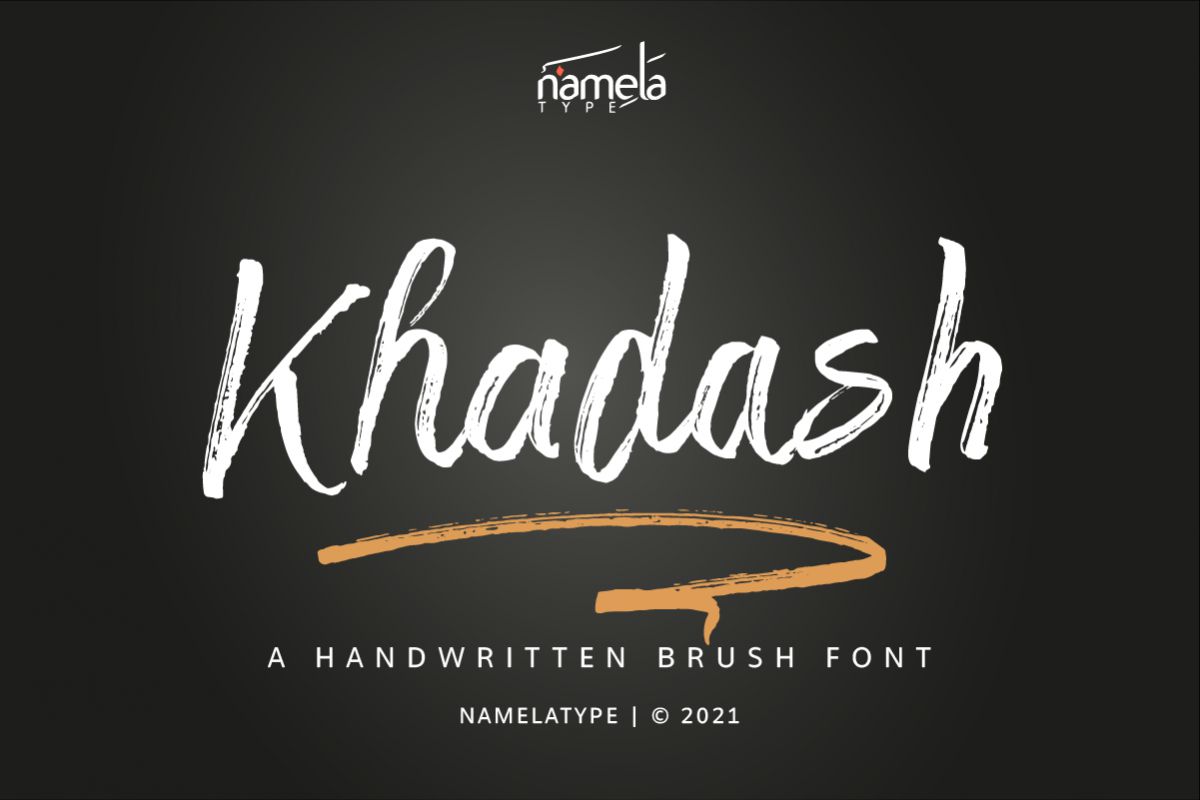
Khadash Regular
Khadash Font - A Stunning Handwritten Brush Typeface for Apps & ePub Some typefaces are designed to disappear, allowing content to take center stage. Khadash is not one of them. This striking brush font is created to stand out—bringing the raw, organic energy of brush strokes into posters, headlines, branding, and editorial layouts that demand attention. Derived from the word Khadash, meaning a small scratch or mark, the font embraces imperfection as a defining visual language, transforming sub